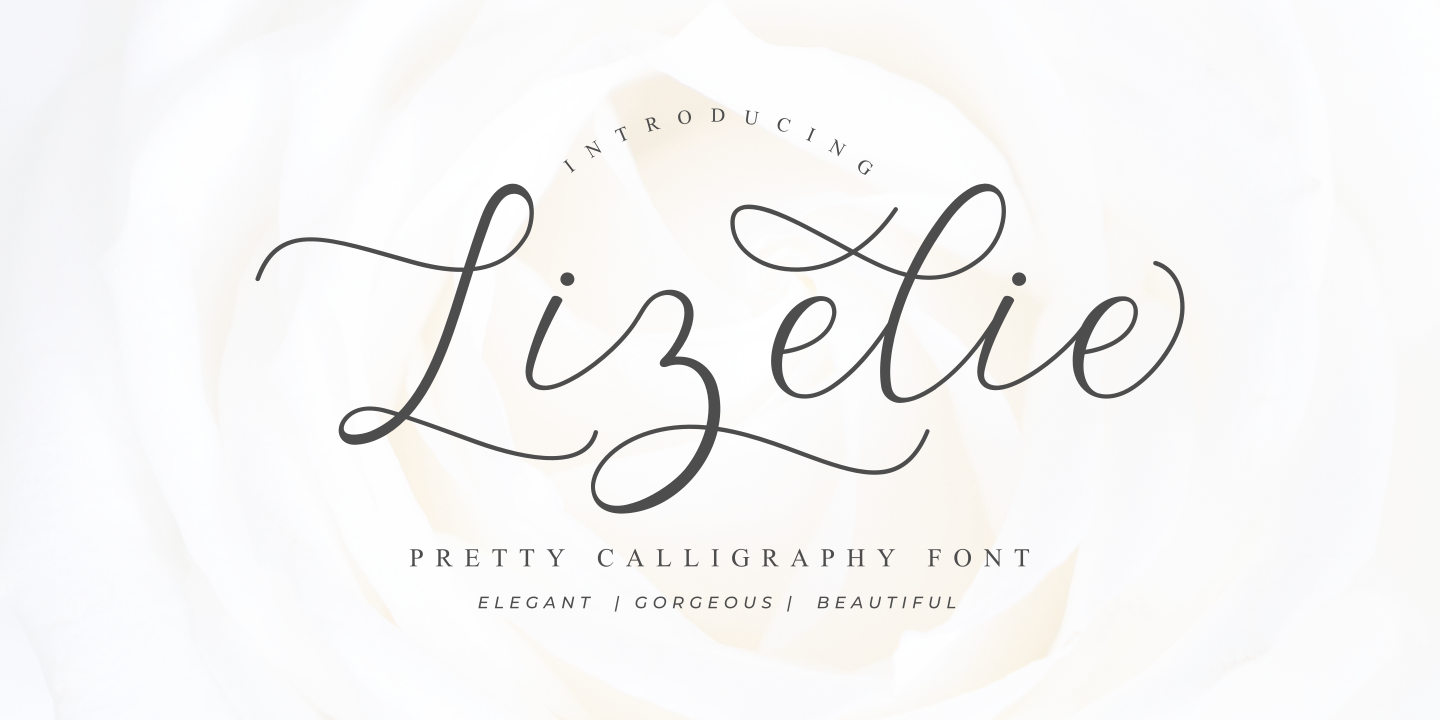
Lizelie Font Free Download presents designers with a feminine typeface that embodies graceful elegance and contemporary sophistication with delicate charm. However, for commercial use, you must purchase this font. You can download it for free for testing purposes only.
Lizelie Font excels in elegant design applications including beauty salon branding, fashion boutique signage, feminine lifestyle blogs, wedding planning materials, cosmetics packaging, jewelry store communications, spa and wellness centers, women's magazine layouts, elegant event invitations, and sophisticated lifestyle campaigns. This graceful typeface brings refined femininity to contemporary design projects.
What makes Lizelie Font truly exciting is its perfect balance of modern sophistication with gentle feminine curves that create approachable elegance without sacrificing professional credibility. The font features delicately crafted letterforms with subtle flourishes and graceful proportions that convey confidence, beauty, and contemporary grace. Its feminine character and elegant sophistication make it ideal for brands celebrating women's empowerment, beauty industries, and audiences who appreciate refined aesthetics, personal style, and the confident elegance of modern femininity.
The Lizelie Font family typically includes multiple weights such as Light, Regular, Medium, and Bold with potential Italic variations that enhance its feminine character. These elegant options provide designers with complete sophisticated styling while maintaining the font's distinctive graceful elegance and contemporary presentation across various beauty applications and lifestyle contexts.
Whether you're developing beauty industry branding, creating feminine lifestyle campaigns, or designing elegant marketing materials, Lizelie Font Free Download delivers the feminine authority and contemporary sophistication that beauty-focused projects require. Its exceptional grace and elegant appeal make it invaluable for designers working with beauty brands, fashion companies, and lifestyle-oriented organizations requiring typography that celebrates feminine strength, contemporary elegance, and the confident beauty that defines modern women who embrace both style and substance in their personal and professional lives.